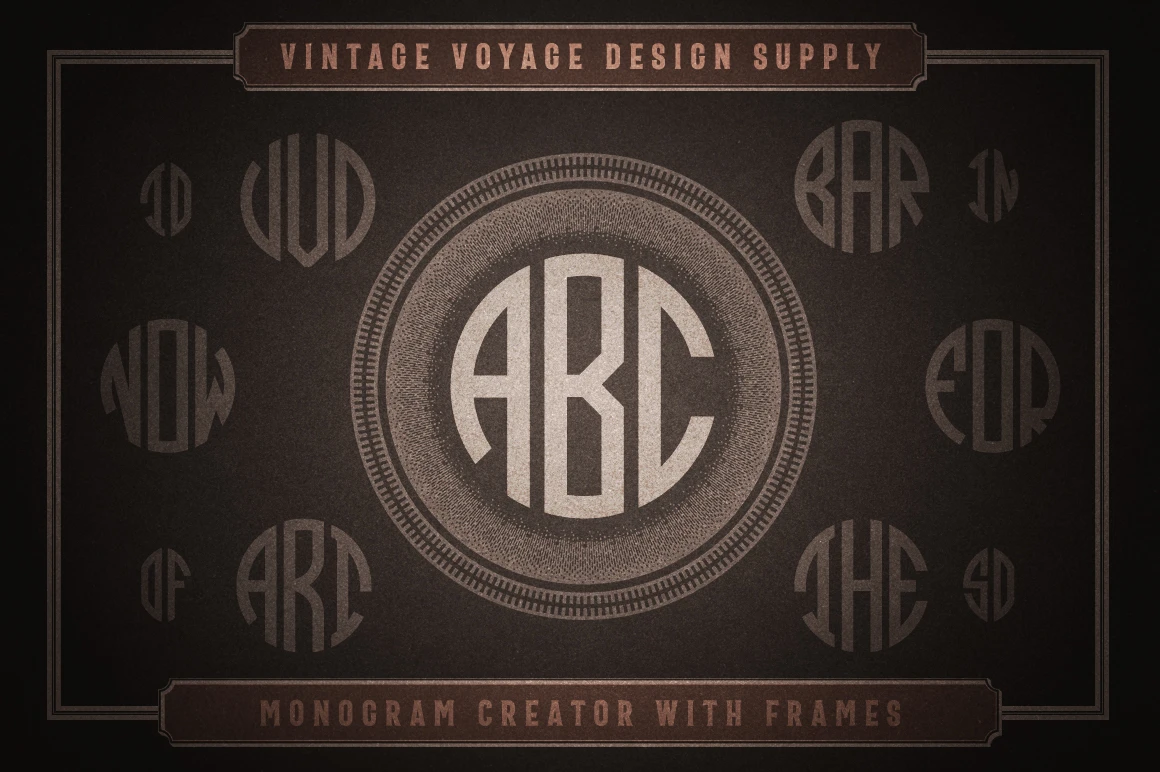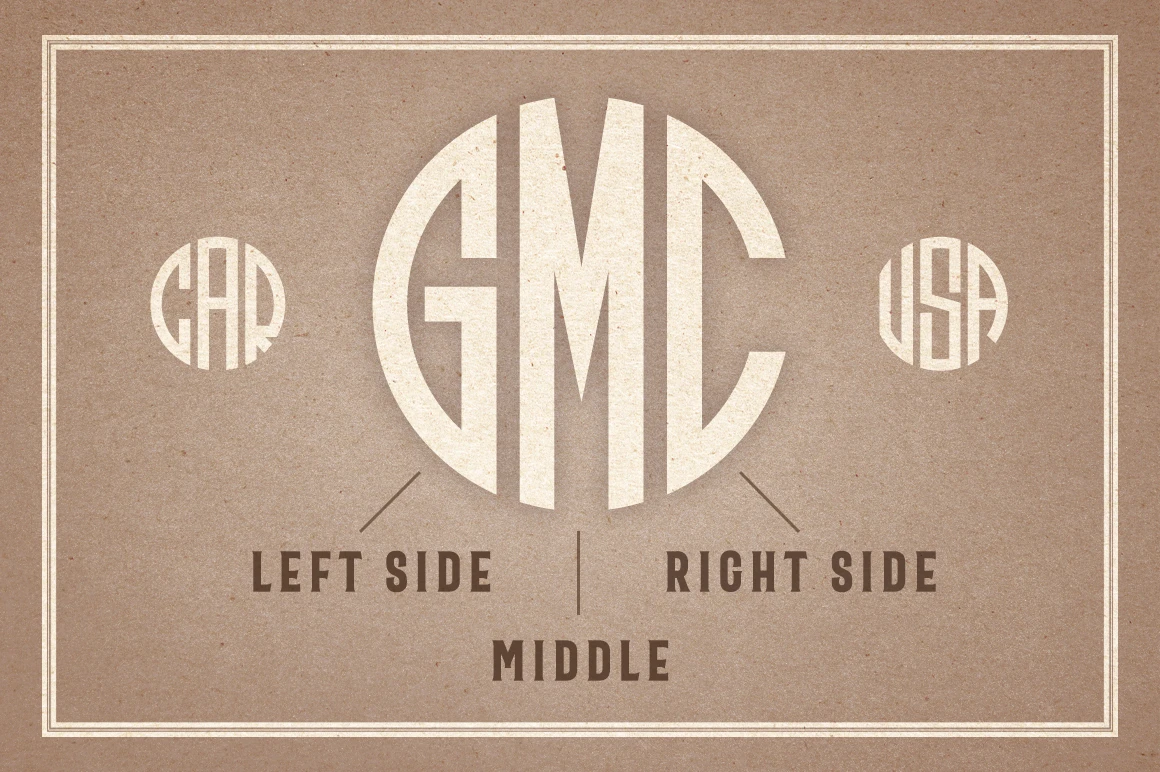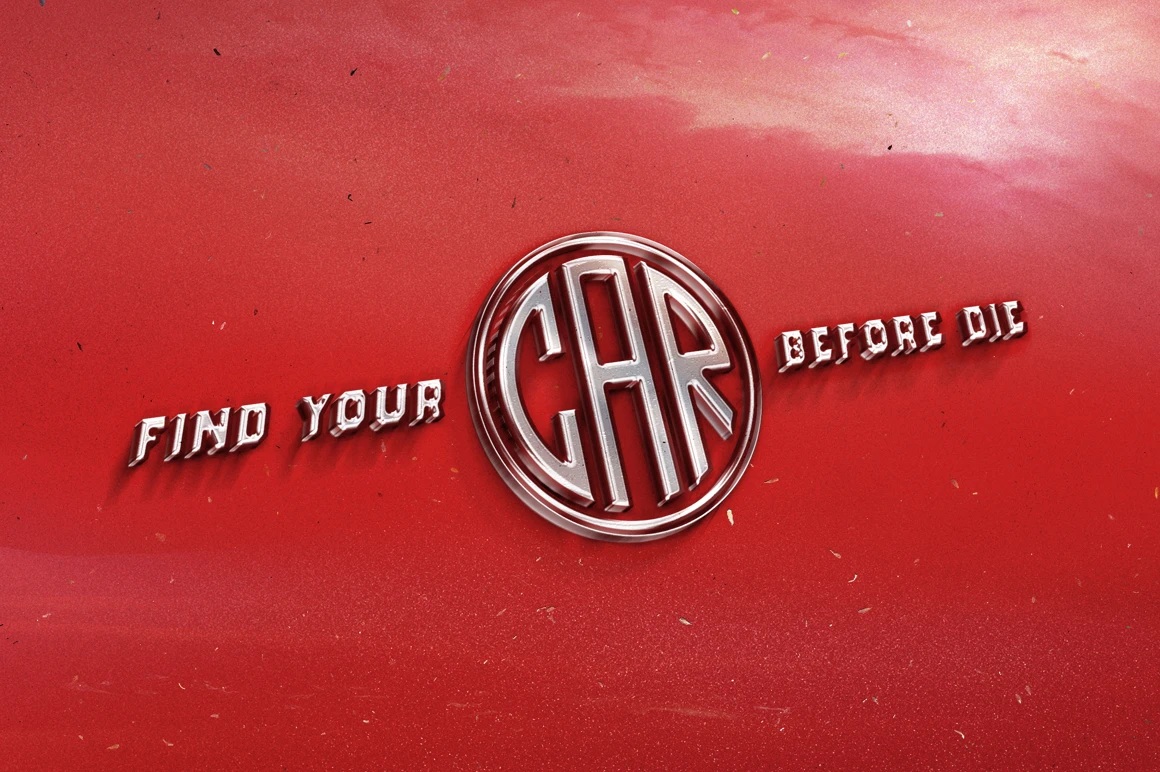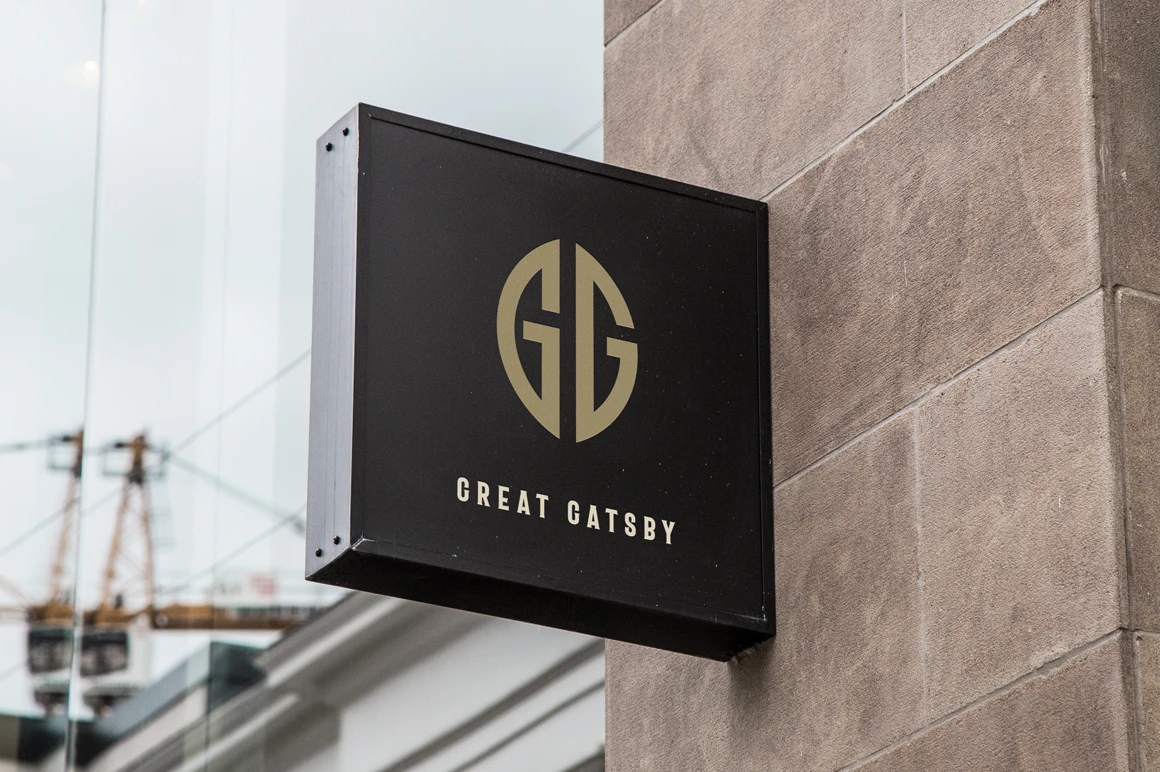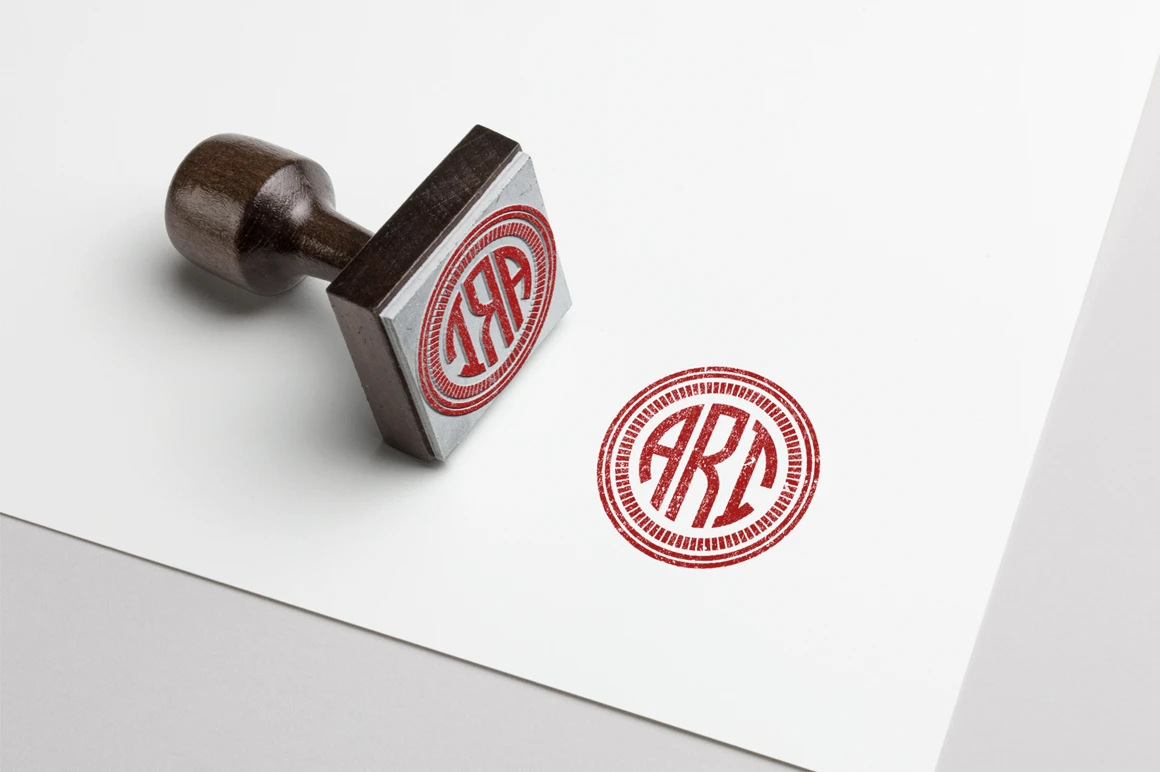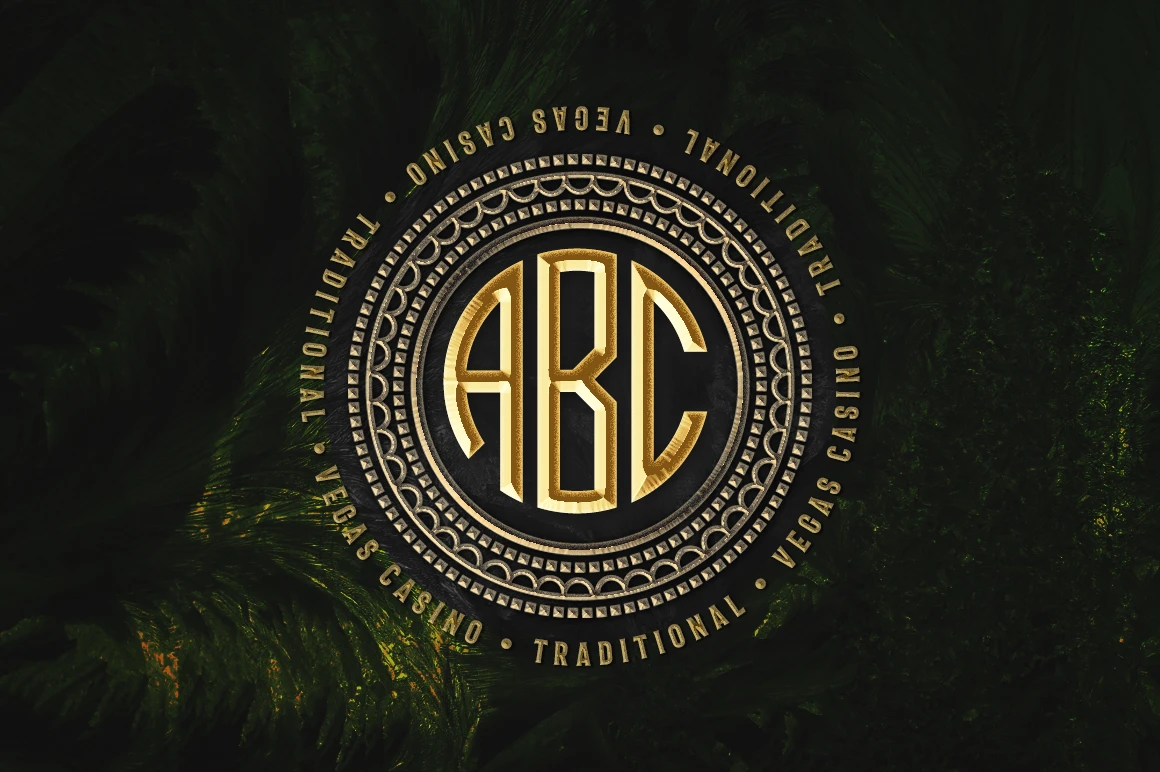
Circle Monogram Font Family
Circle Monogram is a set of three typefaces designed for creating two- or three-letter monograms. Inspired by mid-century sans-serif styles with a clean, simple look. Includes a full basic Latin set, numerals, and a central ampersand. Some letters feature two style options, using uppercase and lowercase forms. Perfect for logos, stationery, personal branding, and decorative initials. Built for quick and stylish monogram creation.
Circle Monogram
Styles included • Left • Middle • Right
Circle Monogram font styles
Circle Monogram Left
Circle Monogram Middle
Circle Monogram Right